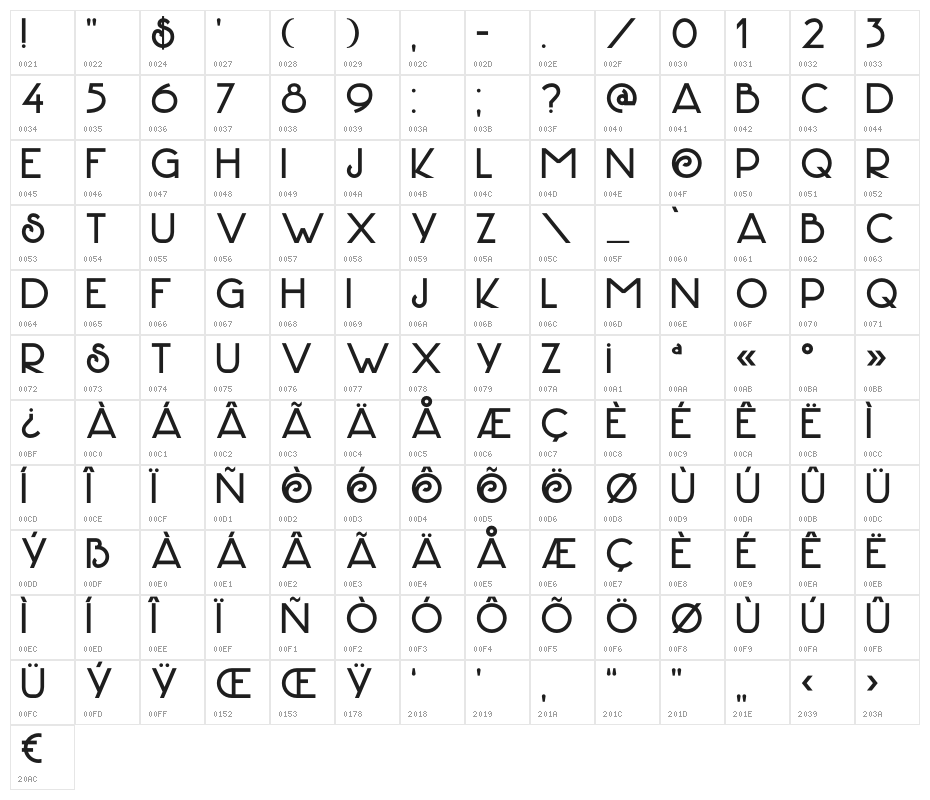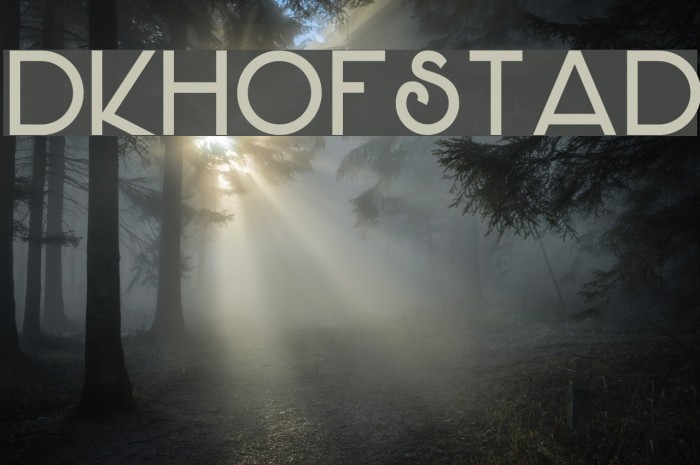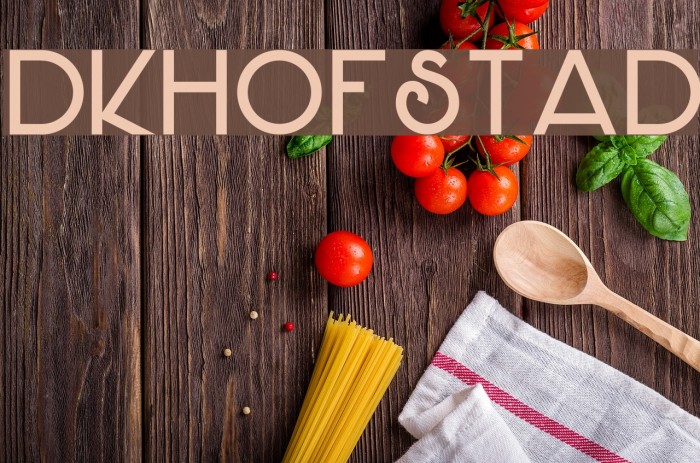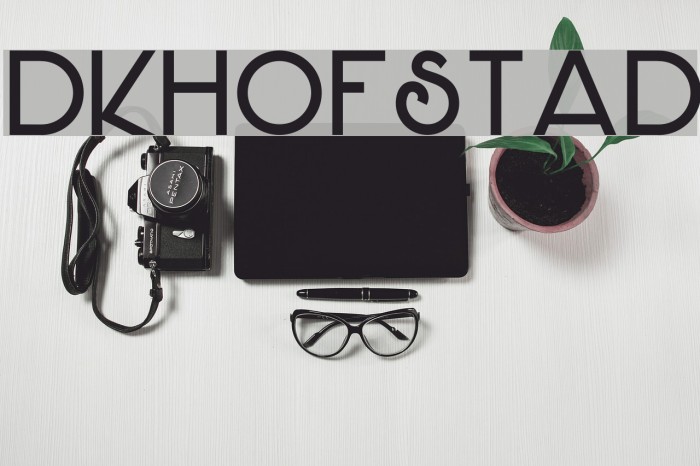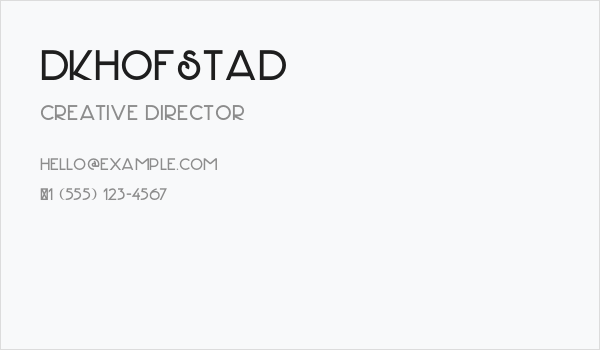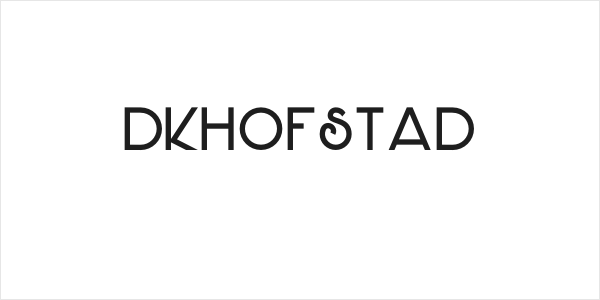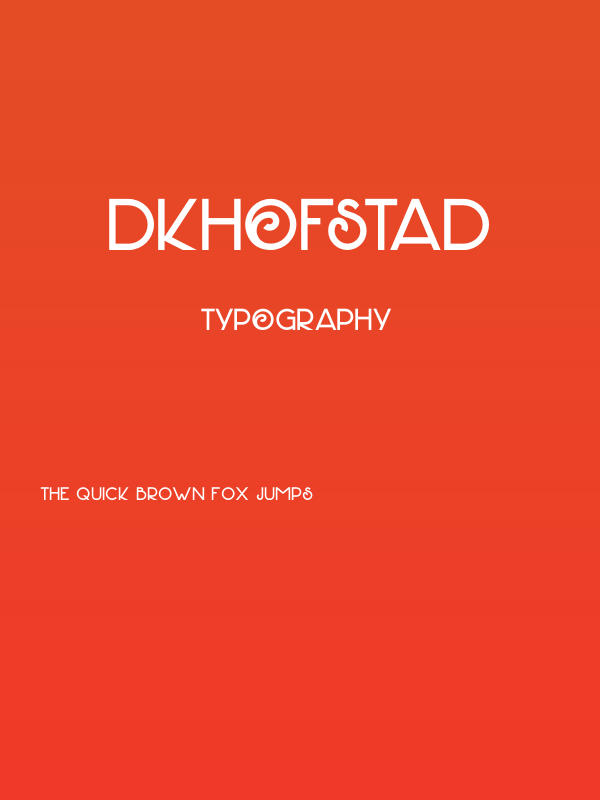
DKHofstad Font
DKHofstad Description
This font features a modern and geometric design with clean lines and a distinct style. The uppercase letters are bold and angular, with unique elements such as the spiral in the 'O' and the curved tail in the 'J'. The lowercase letters maintain a similar geometric aesthetic, offering a cohesive look throughout. Numbers are clear and easy to read, with a slight curve that adds a touch of elegance. Special characters are creatively designed, incorporating the same geometric elements, making them stand out. This font is ideal for projects that require a contemporary and artistic touch, combining readability with a striking visual appeal.